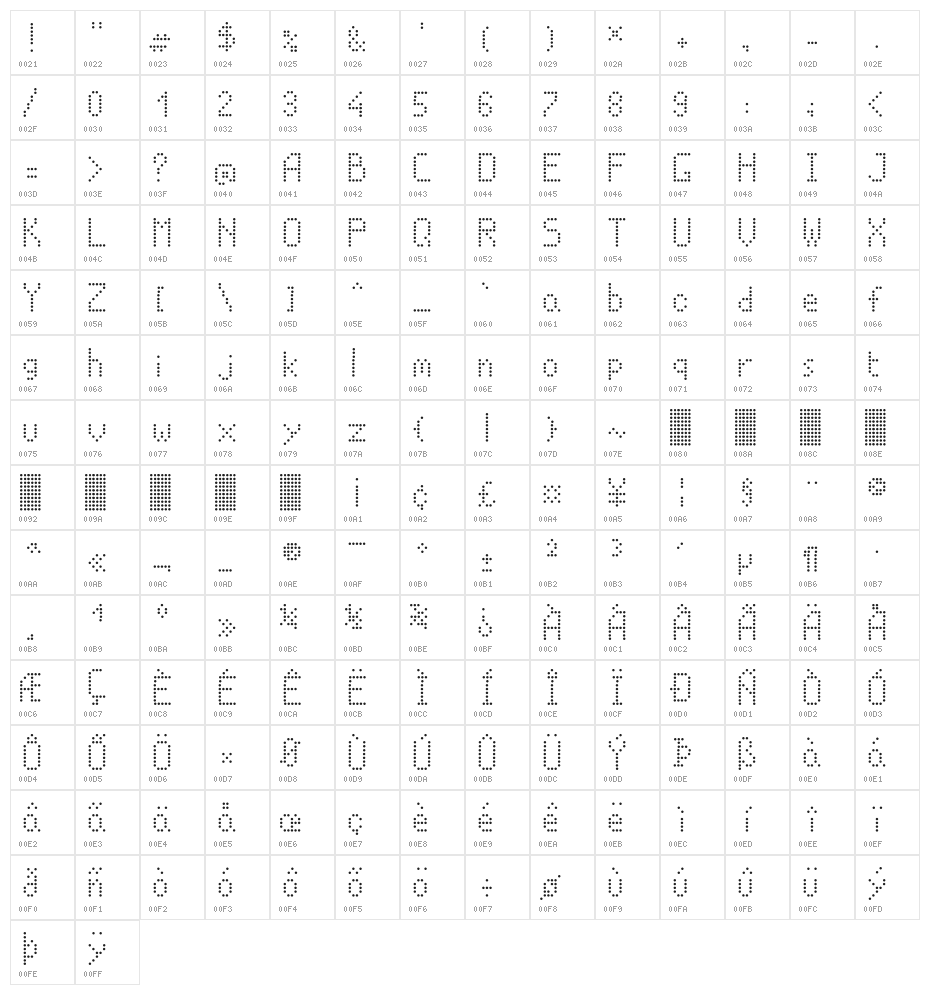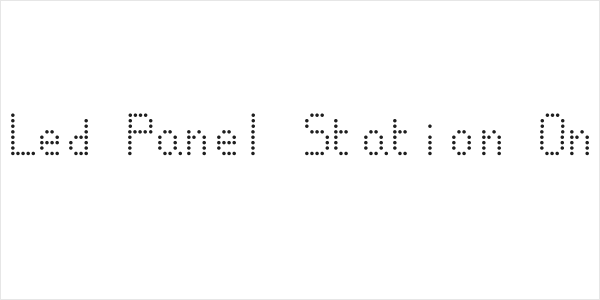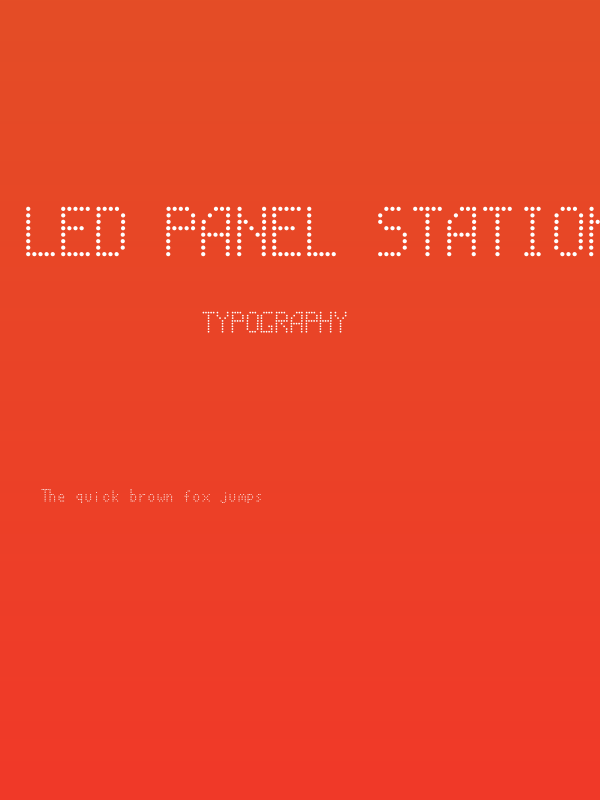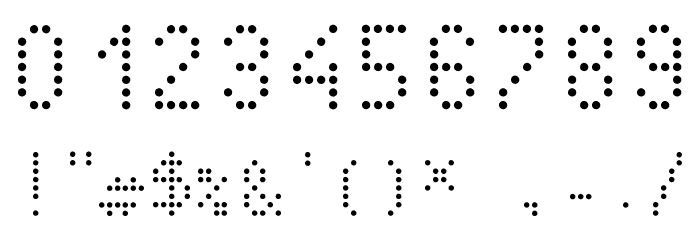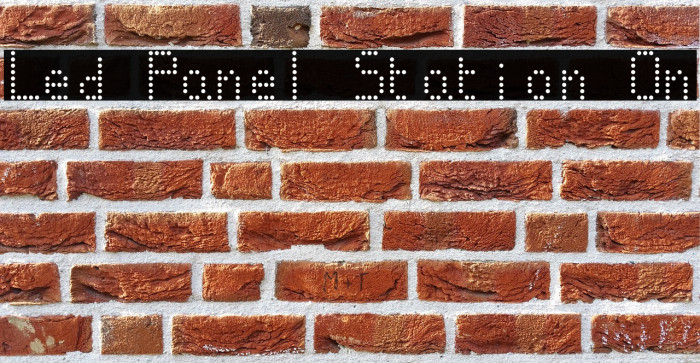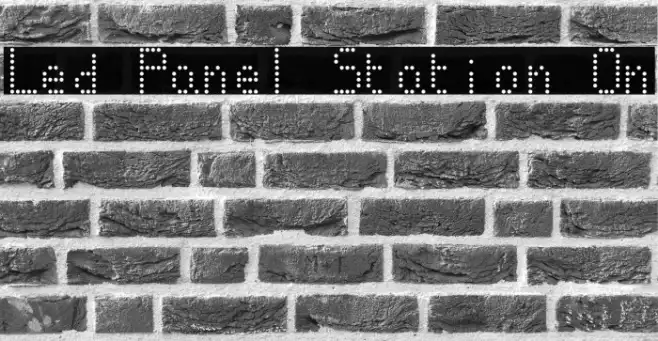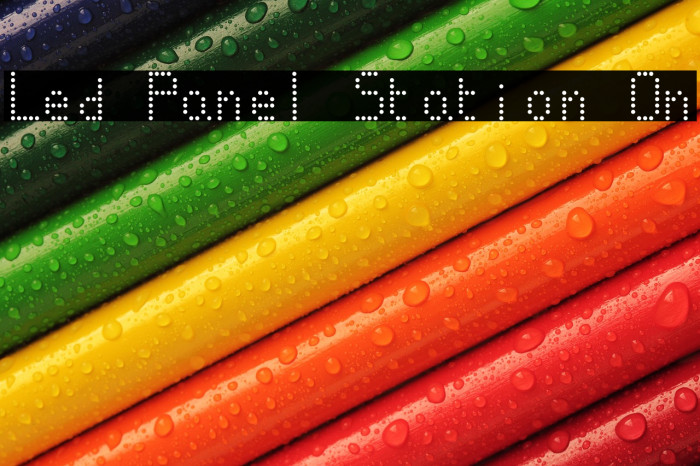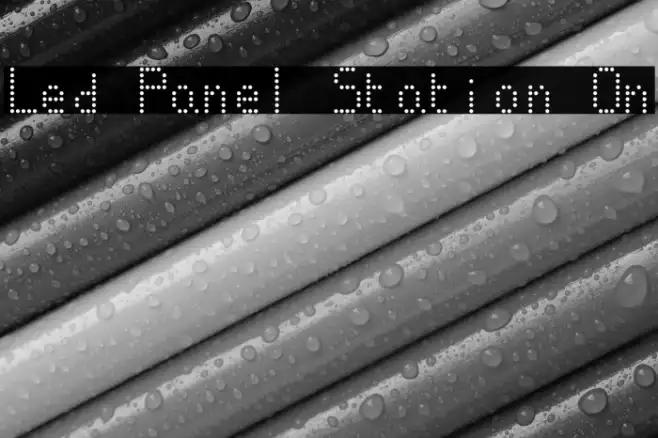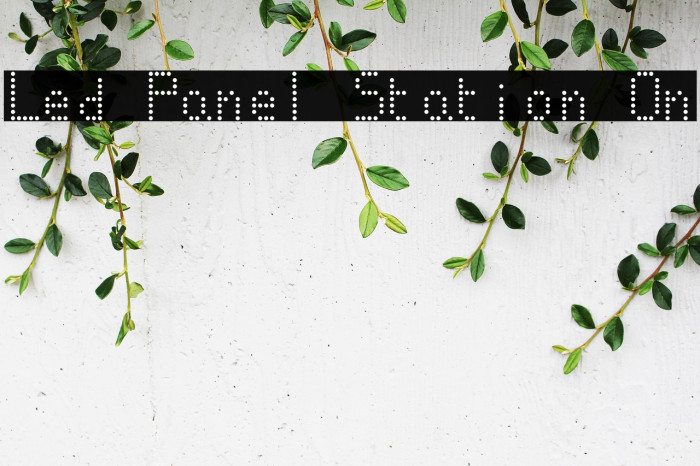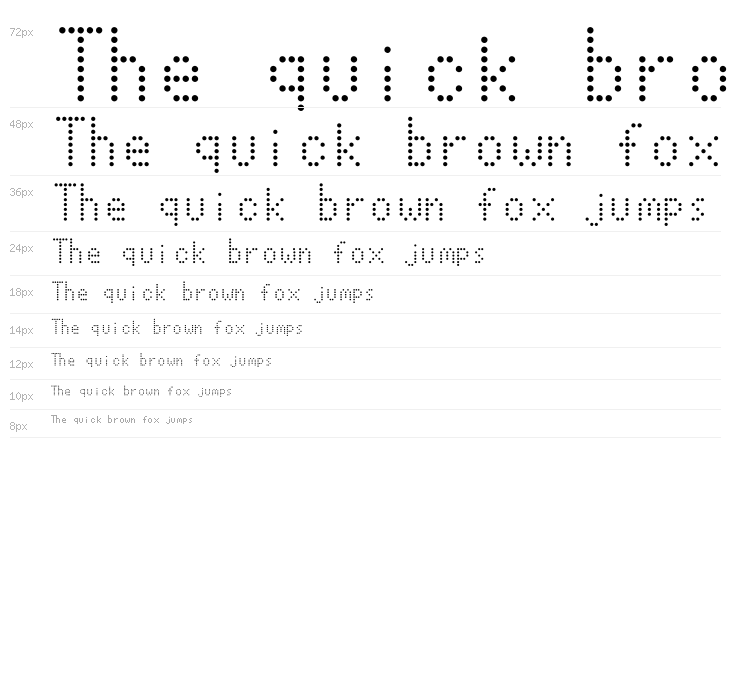
Led Panel Station On Font
Led Panel Station On Description
This font is characterized by its unique dot matrix style, reminiscent of LED displays. Each character is formed by a series of evenly spaced dots, creating a digital and modern appearance. The uppercase and lowercase letters maintain a consistent height, while the numbers and special characters follow the same dot pattern, ensuring uniformity across all glyphs. The font's design is minimalistic yet highly legible, making it suitable for digital displays and signage. Its geometric structure gives it a futuristic feel, ideal for tech-related projects.
| Use Case | Headlines, Digital displays, Signage |
| Proposed Projects | Perfect for digital displays, electronic signage, tech-themed designs, and modern branding projects. |